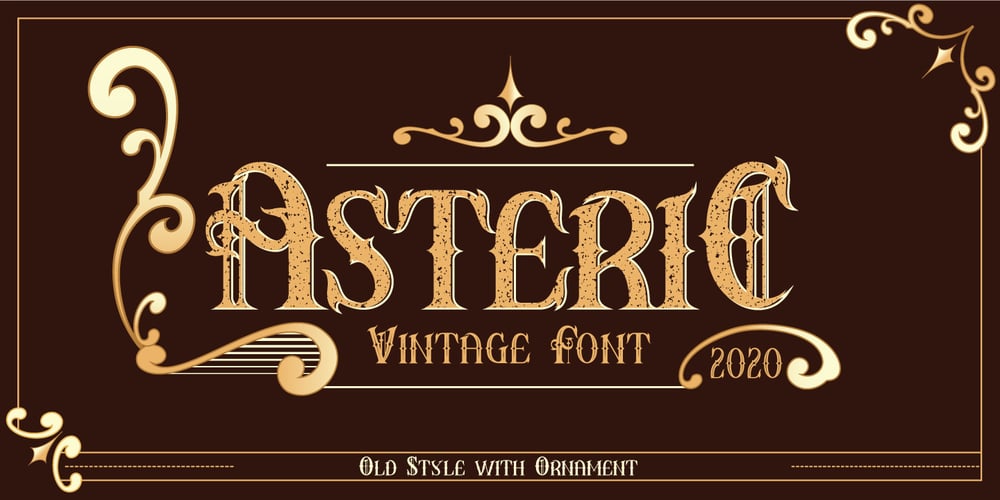
Asteric Vintage Font Family was designed by Riska Kurniawan and published by BlackLotus. Asteric Vintage contains 4 styles and family package options. Asteric Vintage is a retro-vintage font family with an amazing set of ornaments. It comes in 3 different styles: Regular, Rough, Display, and also presents 26 beautiful and luxurious ornaments . The Rough Style has a characteristic that resembles rust on each character, thus creating results that seem strong and hard. The Display Style is very suitable for display, every work created with it becomes luxurious, wrapped in a classic atmosphere. The Regular Style is a style that has a clean character but still carries a classic scent that is thick and unique. This style is very suitable for use in magazines, books, newspapers, etc.